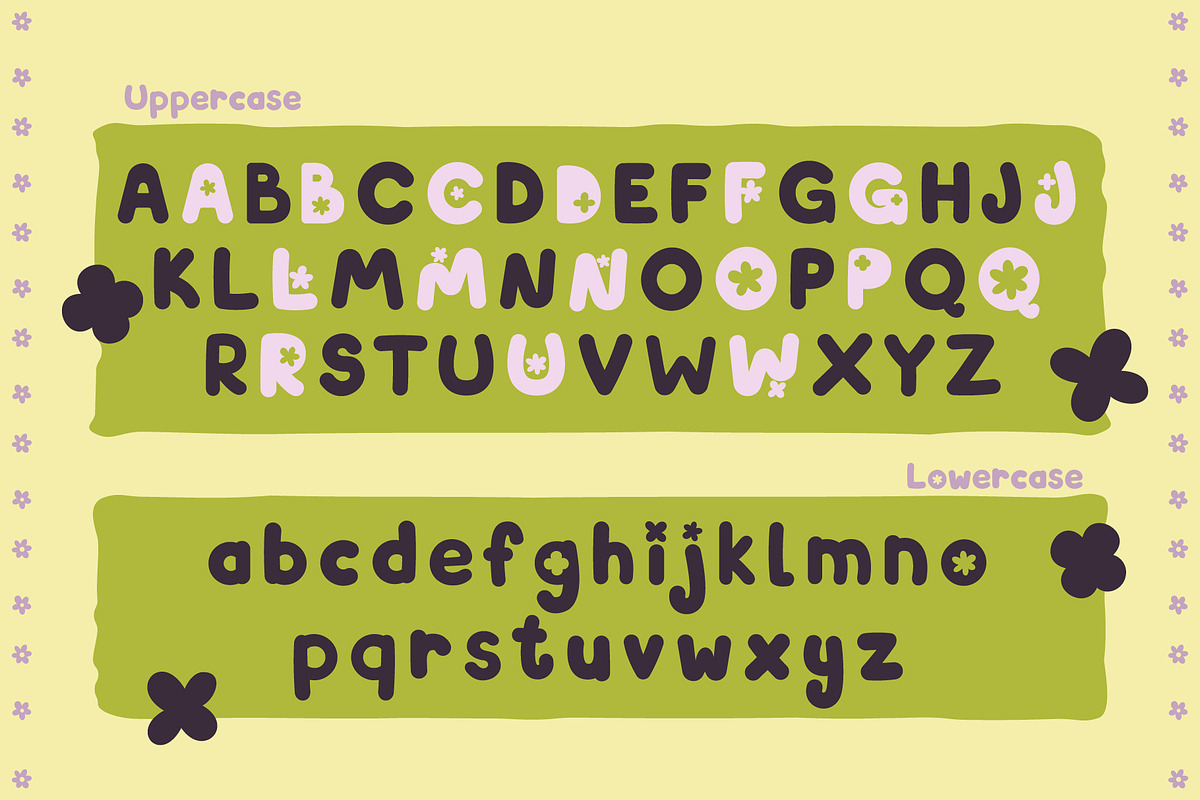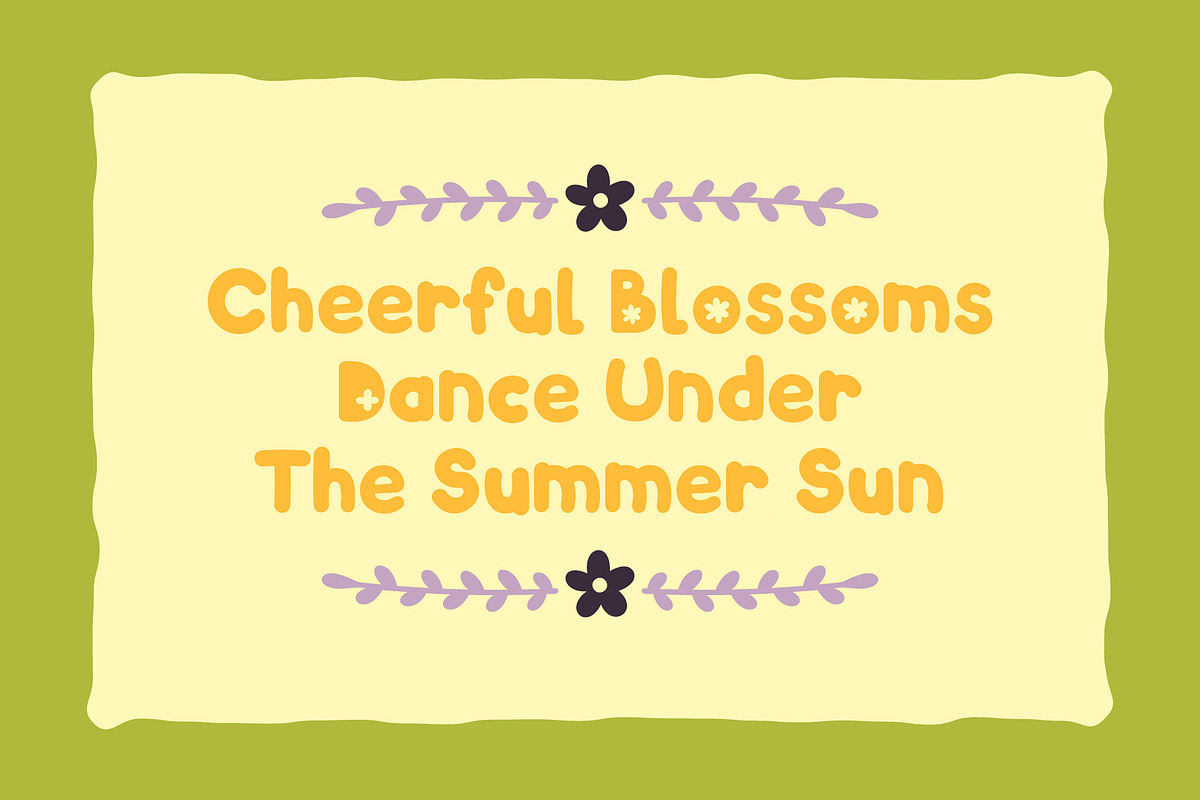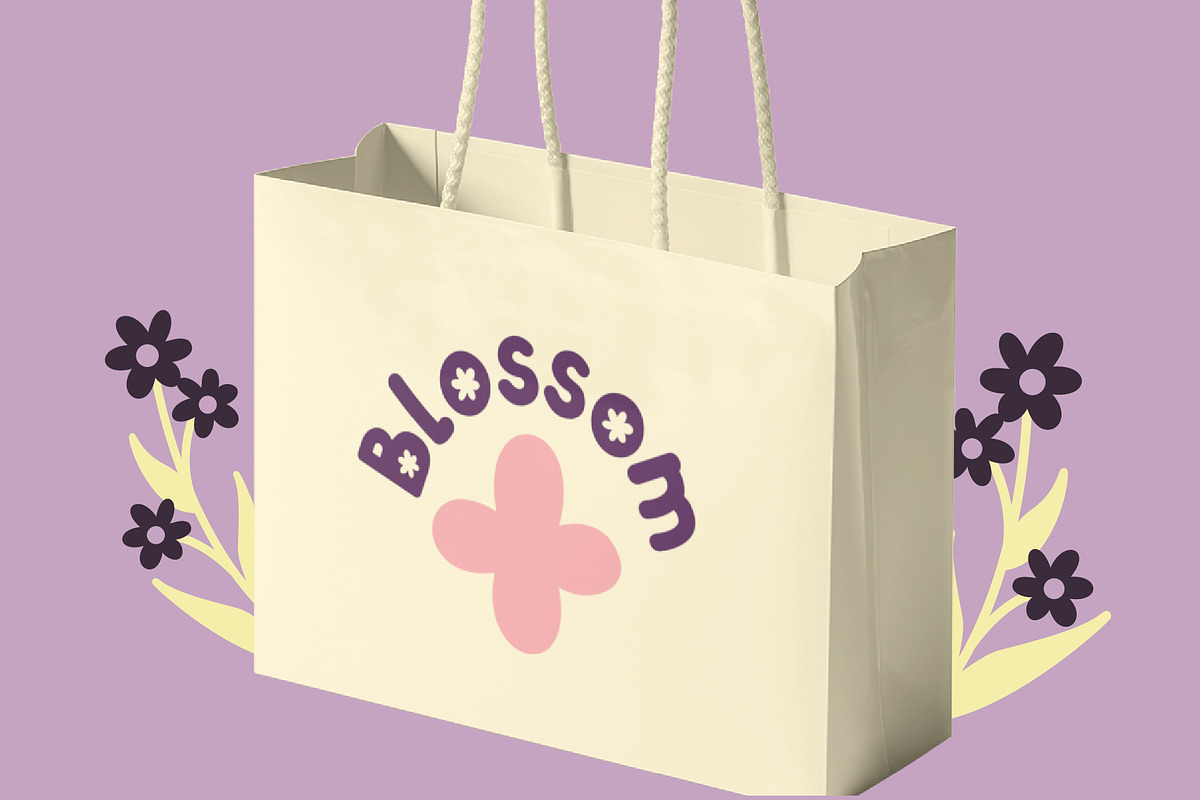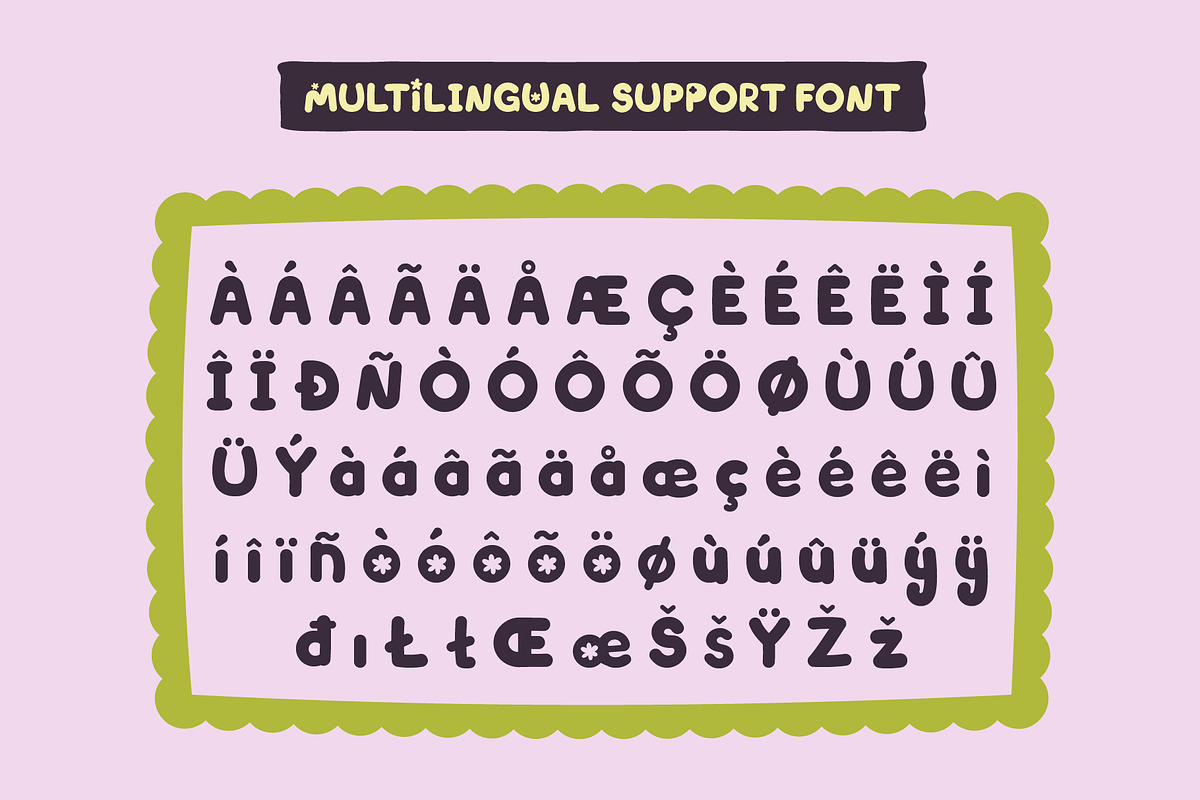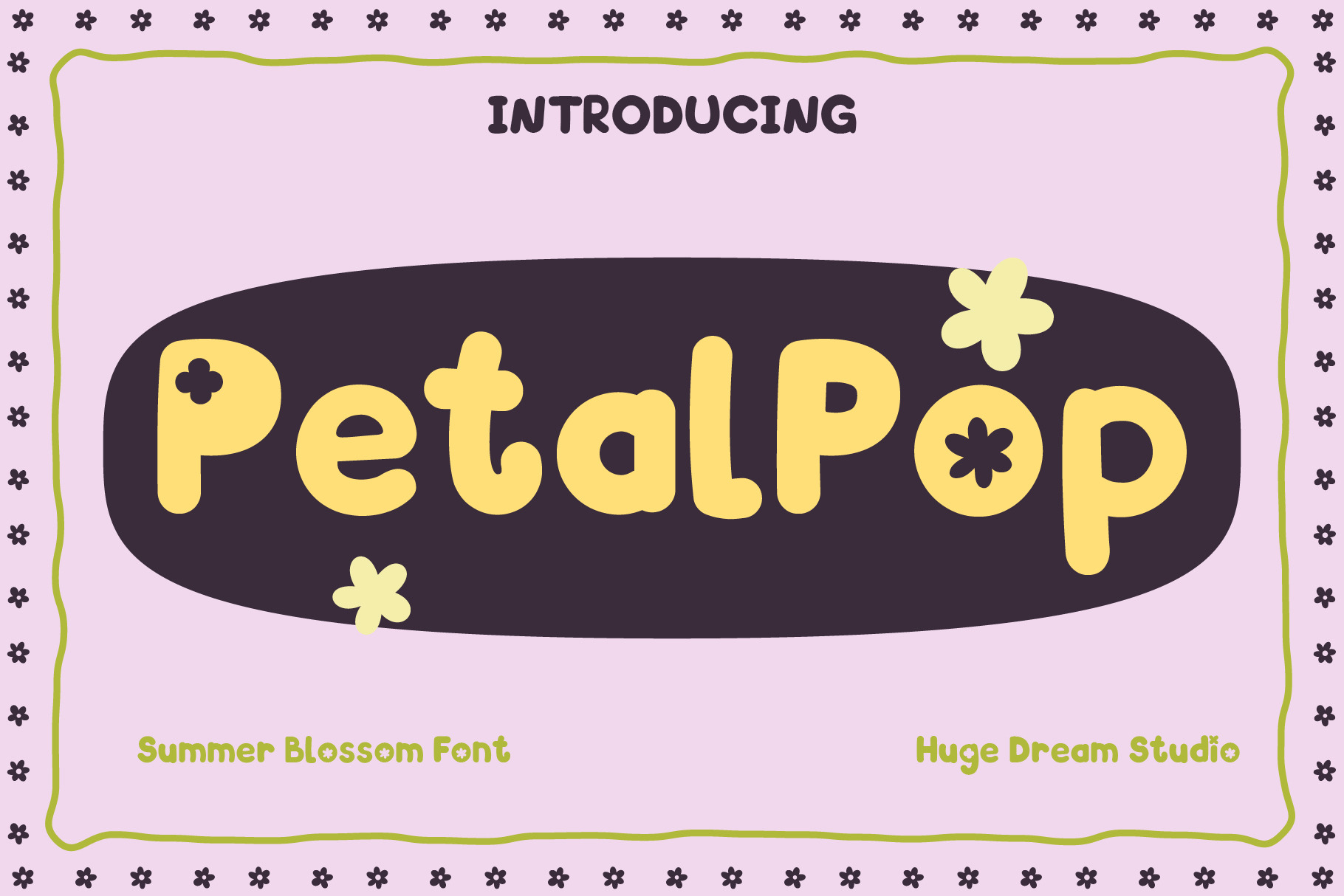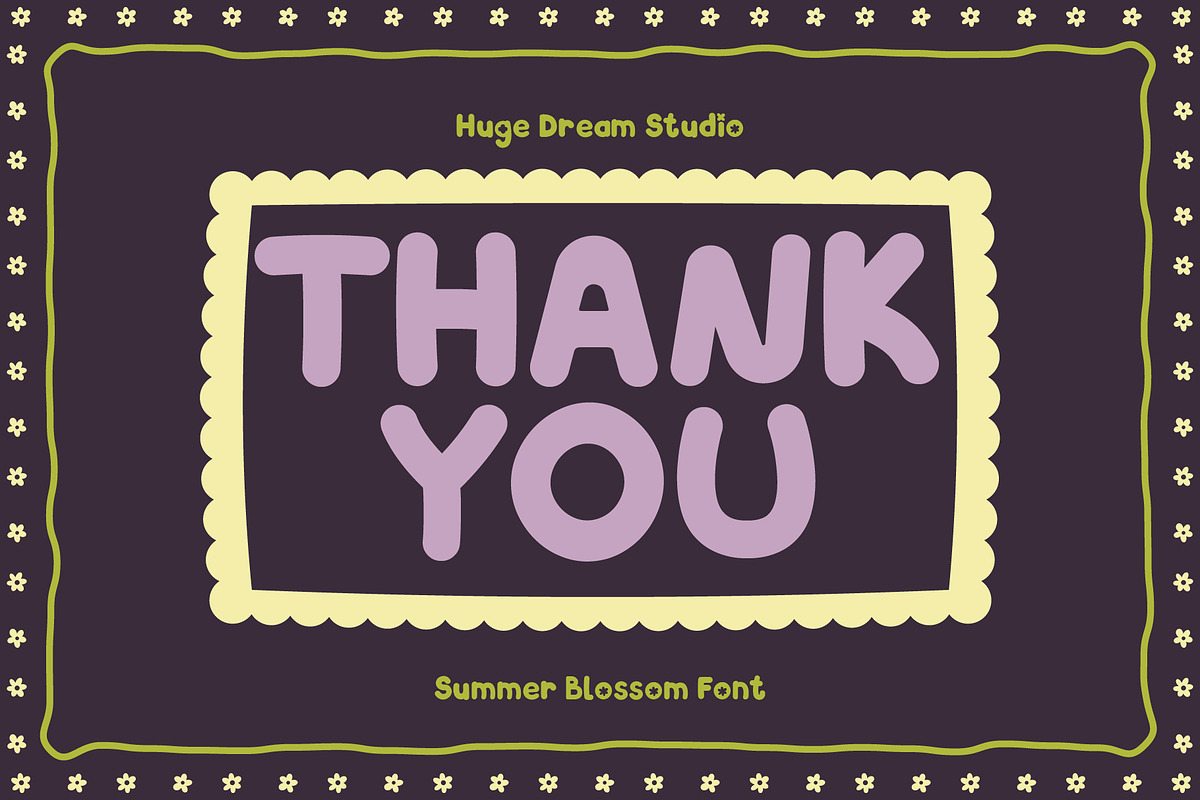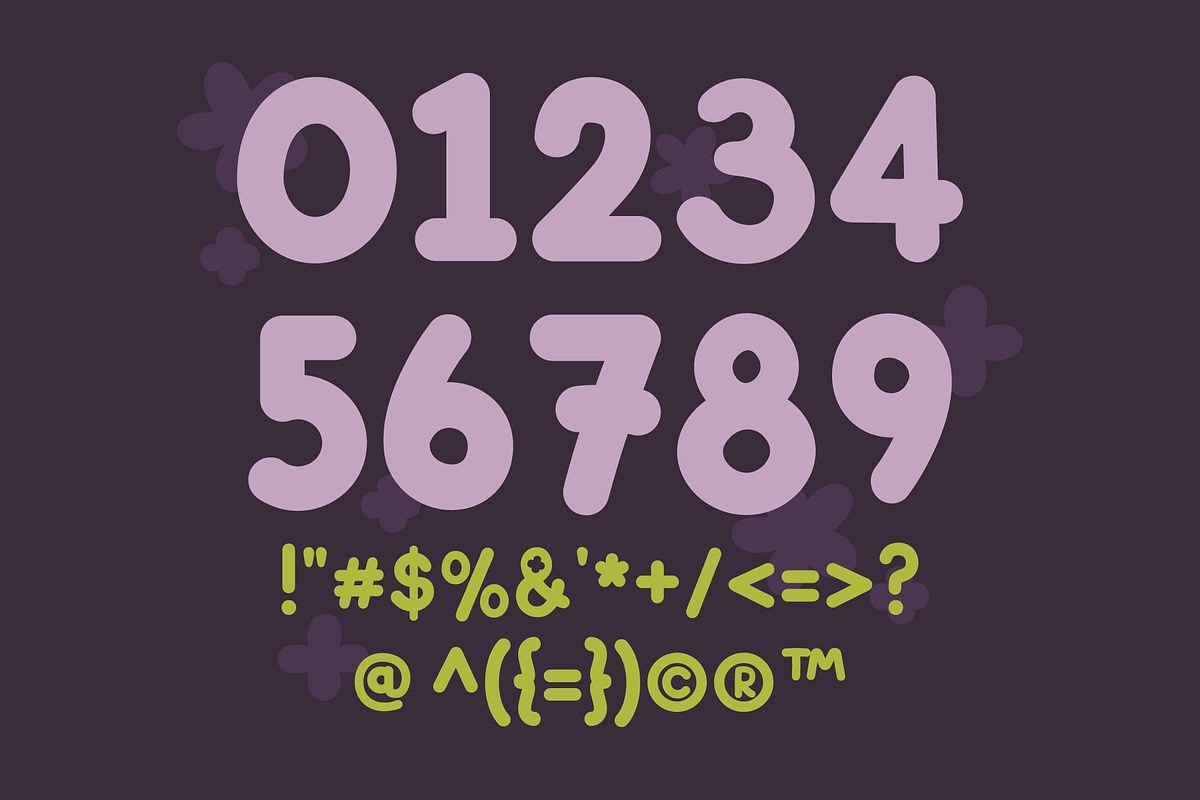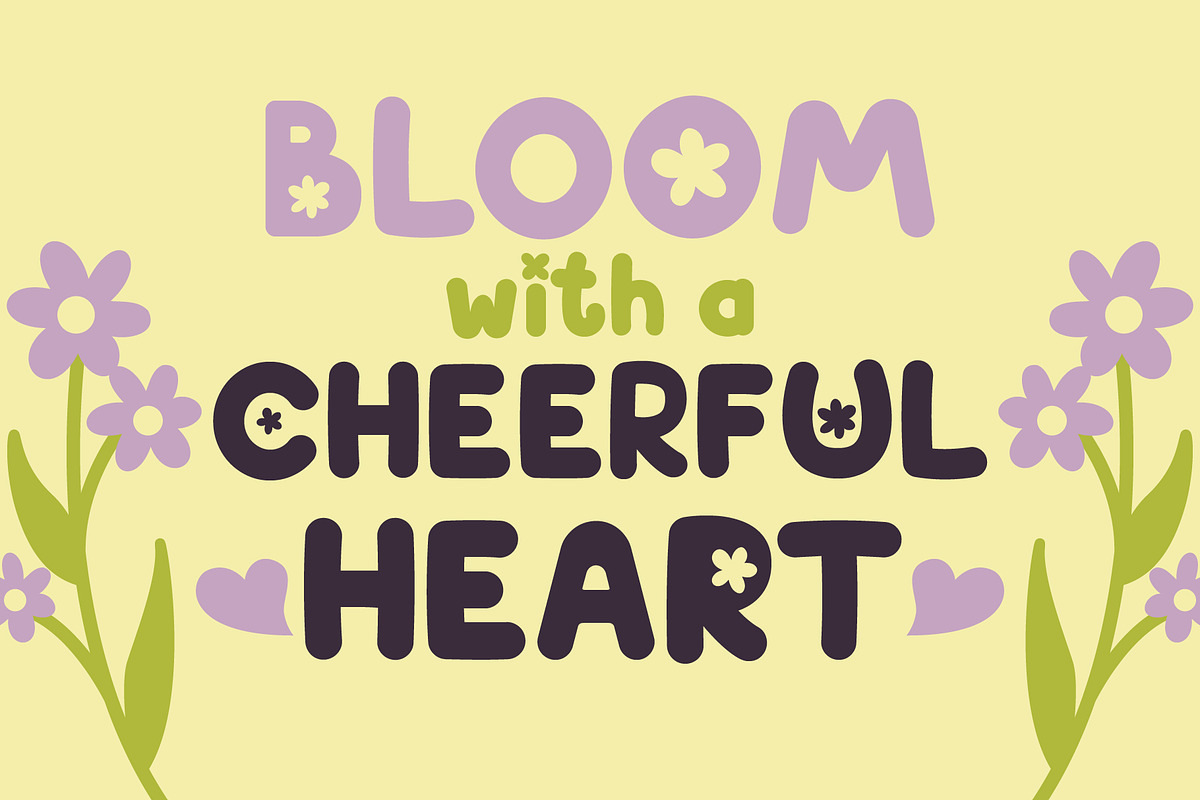
PetalPop – Summer Blossom Font
PetalPop – Summer Blossom Font is a cheerful and eye catching typeface that radiates the joyful spirit of Summer Blossom Font. Inspired by blooming petals and sunny days and, making it perfect for designs that need a touch of warmth and fun. This font brings a pop of personality and a fresh, floral vibe to any creative project. Let your designs bloom with PetalPop!
PetalPop – Summer Blossom Font features:
- Character Set (Uppercase & Lowercase)
- Punctuation & Numbers